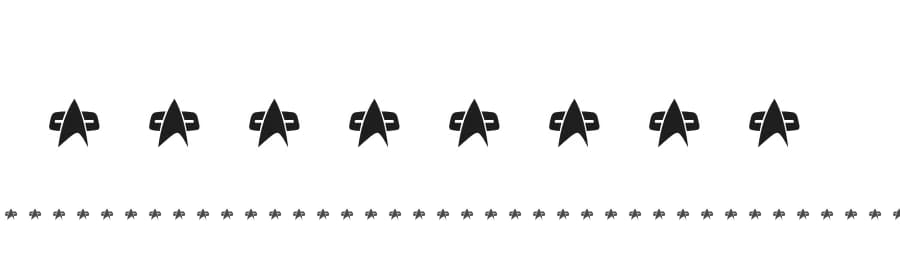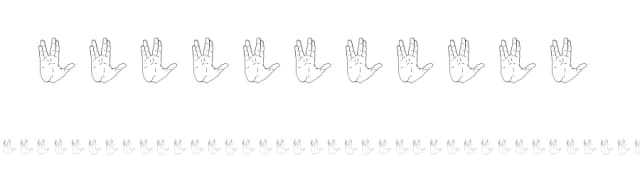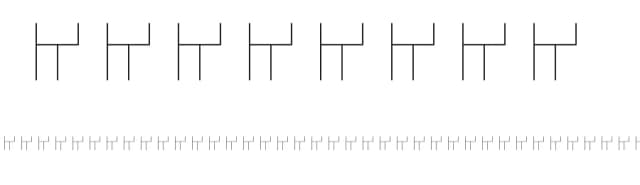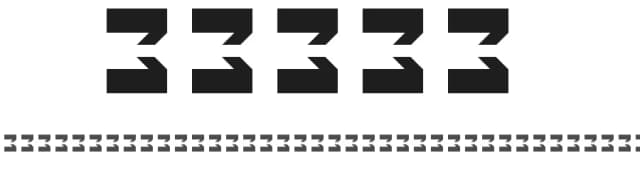
About DingTrek Font
DingTrek is a dingbat font designed by Dietrich Kerner. It includes 98 glyphs, a regular weight, and TTF (TrueType) format. DingTrek is free to download; check the license details on this page before commercial use. Dingbat fonts like DingTrek work best for icons, ornaments, bullet points, and decorative accents.
DingTrek Font is a versatile dingbats font that works for both headings and body text. Pair it with a contrasting sans-serif or serif font to add visual interest and a clear distinction between titles and body copy.